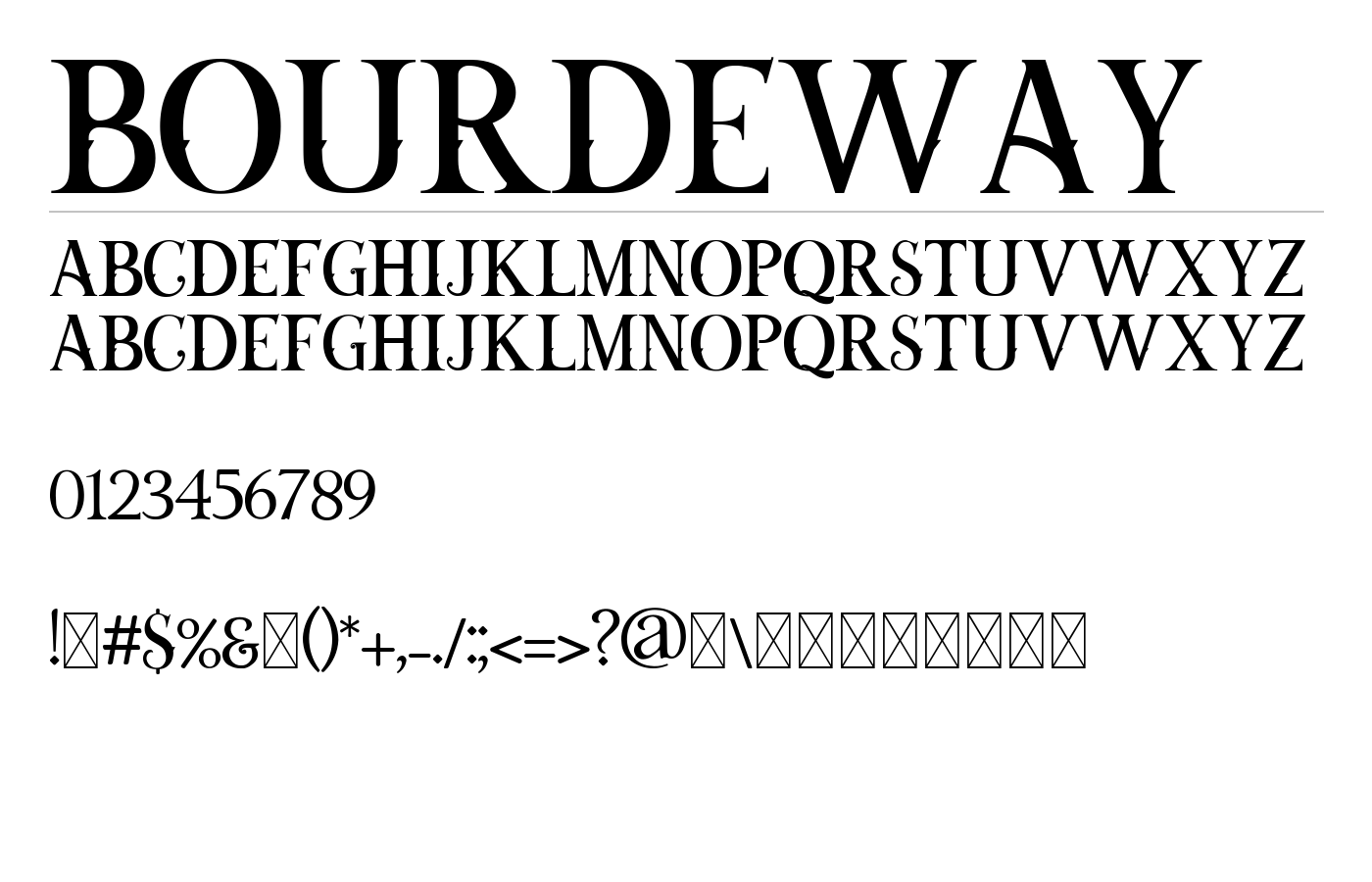
Bourdeway is an elegant serif font with a classic, slightly condensed structure and high contrast between thick and thin strokes, giving it a refined and sophisticated feel. Its sharp, bracketed serifs and distinctive letterforms, like the unique tail on the Q and the single-story a, make it ideal for upscale branding, editorial headlines, and luxury designs that seek a timeless yet bold statement. This font works best where elegance and clarity are paramount, such as in fashion, high-end packaging, and stylish print layouts.
BOURDEWAY Font
About BOURDEWAY Font